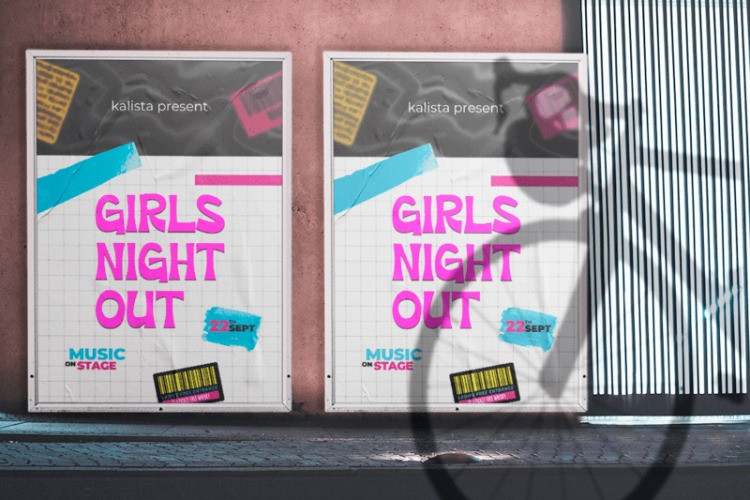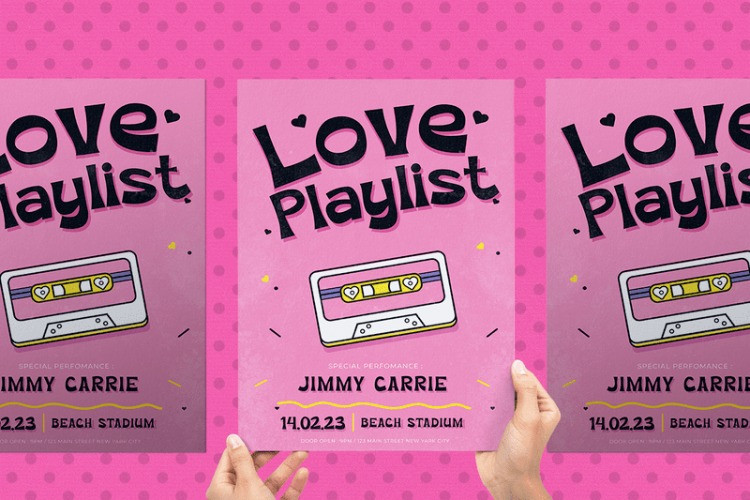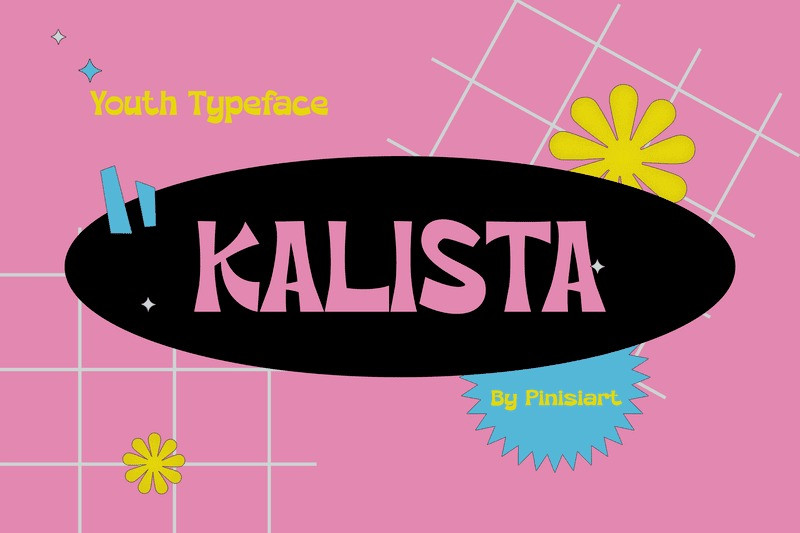
Kalista Font
Kalista Display Font, You can use it as a logo,Comic ,Cartoon , badge, insignia, packaging, headline, poster, t-shirt/apparel, greeting card, and wedding invitation.